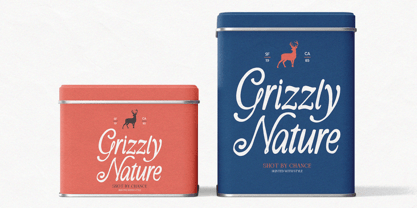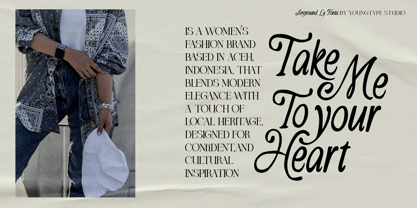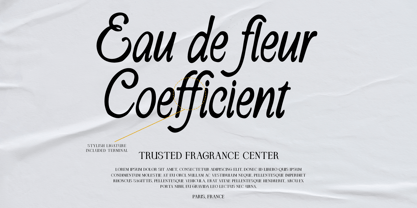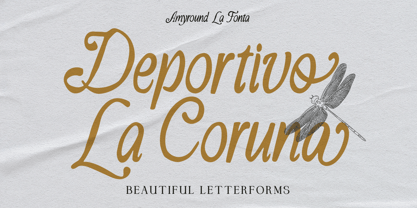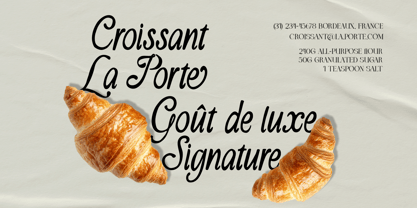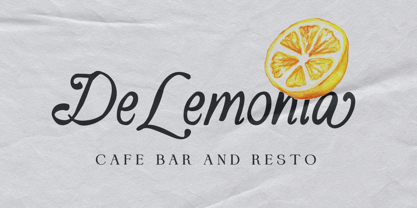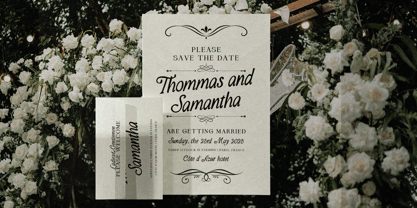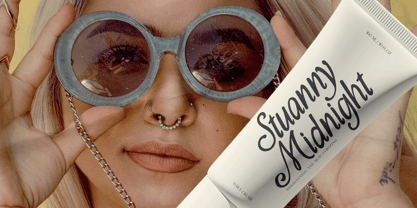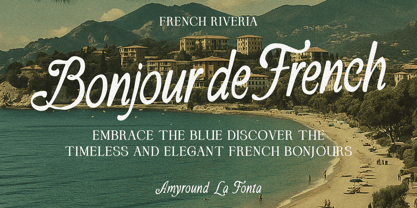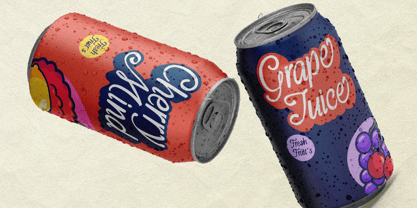
Amyround La Fonta
by Youngtype
The Amyround La Fonta Font Family was designed by Naufal Paramata and published by Youngtype. Amyround La Fonta contains 2 styles and family package options. More about this family
Amyround La Fonta is a sophisticated typeface family that features two distinct yet complementary styles—an elegant script and a refined serif. The script style showcases smooth, flowing letterforms with graceful curves and stylish swashes, capturing a sense of femininity and artistic flair. In contrast, the serif style offers a high-contrast, all-caps design with sharp, classic details that evoke timeless elegance and strength. Together, these styles provide versatility for branding, editorial, and fashion-forward design, allowing for expressive combinations that balance softness with structure.
Contains full set :
• Uppercase
• Lowercase
• Ligatures
• Alternates
• Punctuation
• number
• multilingual support.